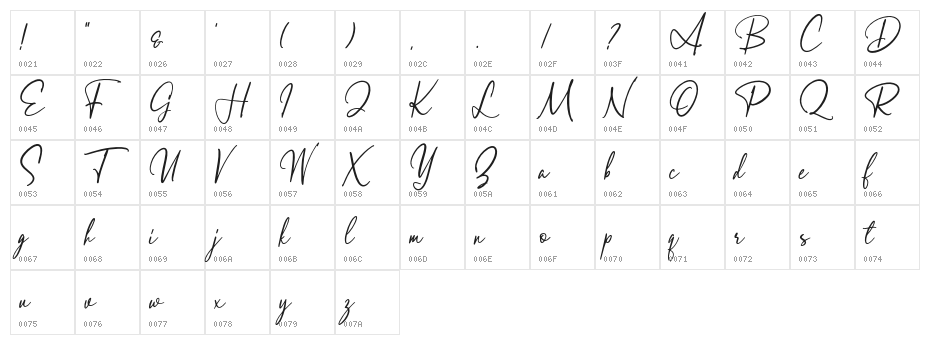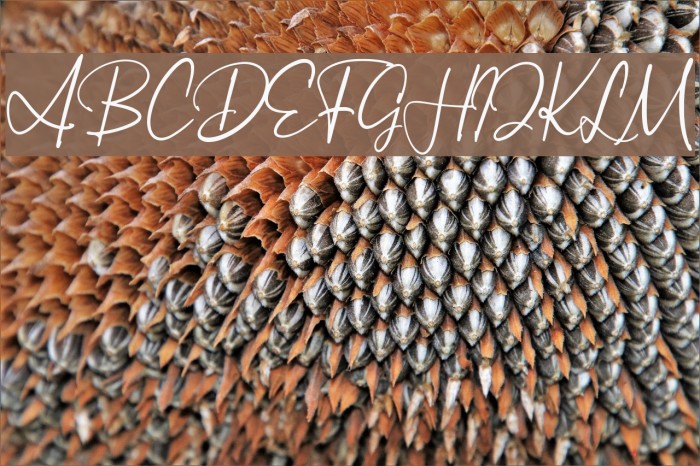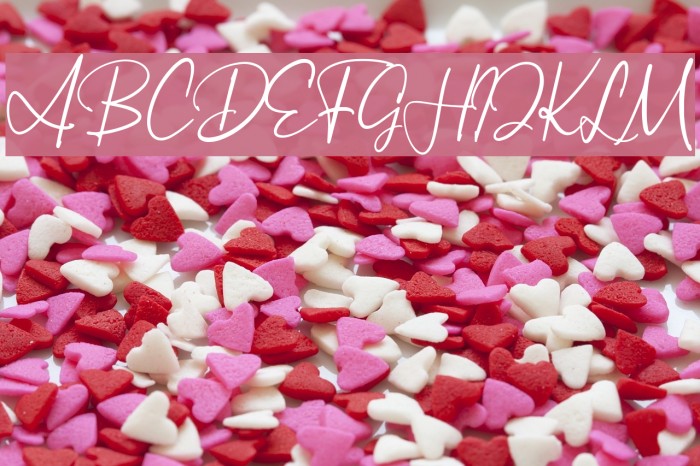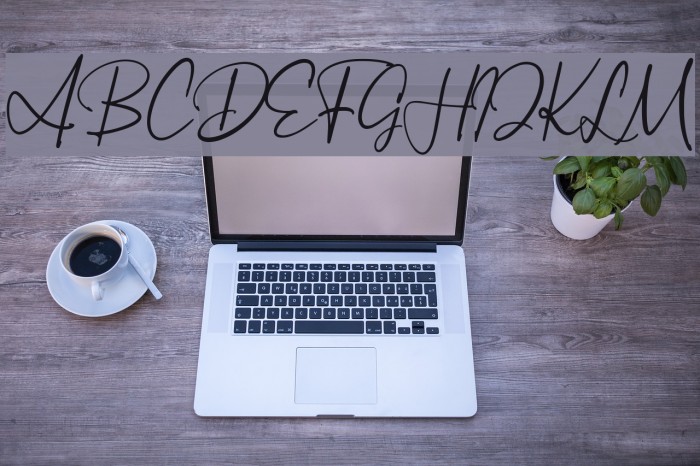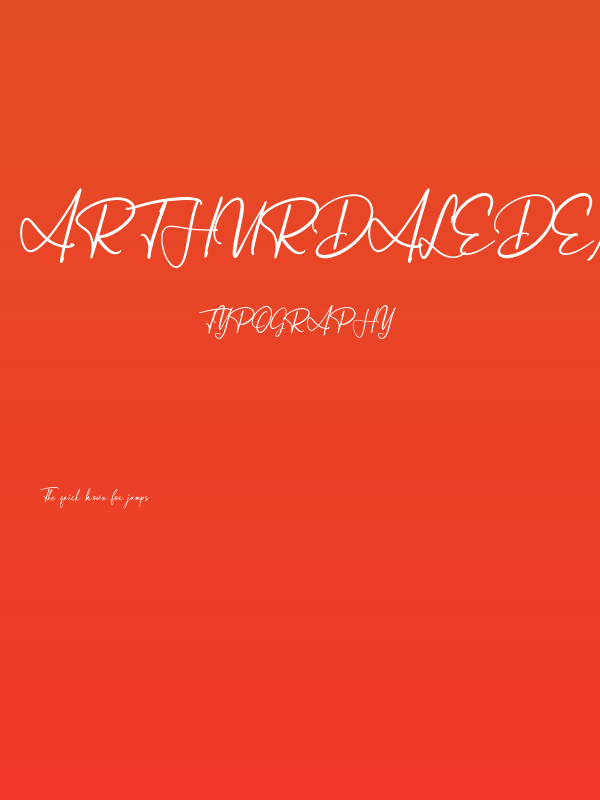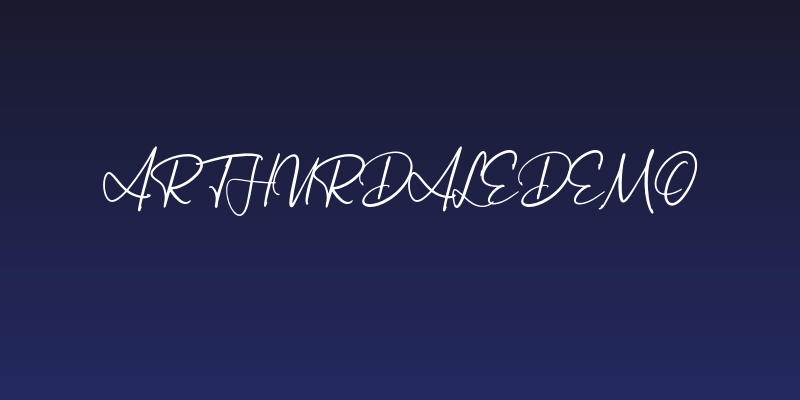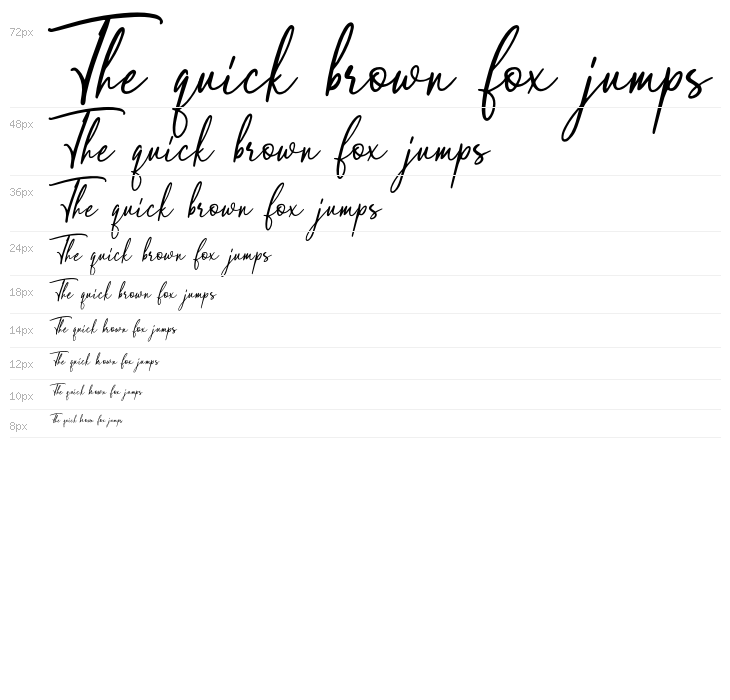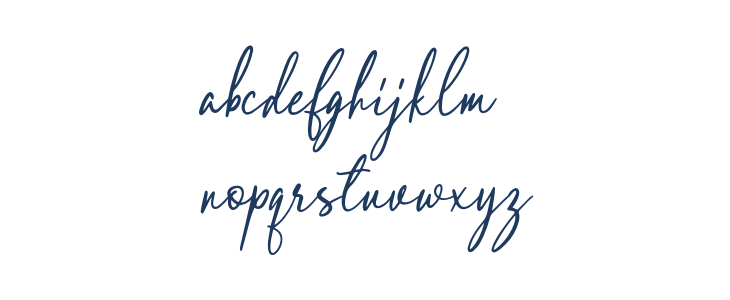
ArthurdaleDemo Font
ArthurdaleDemo Description
This font exhibits a flowing, cursive style with a modern twist. The uppercase letters are elegantly elongated, featuring smooth curves and a slight slant that adds a sense of motion and grace. The lowercase letters maintain a cohesive look, with consistent stroke widths and a balanced design that enhances readability. The numerals and special characters are crafted with the same attention to detail, ensuring a harmonious appearance throughout. This font's overall aesthetic is both sophisticated and approachable, making it suitable for a variety of design applications.